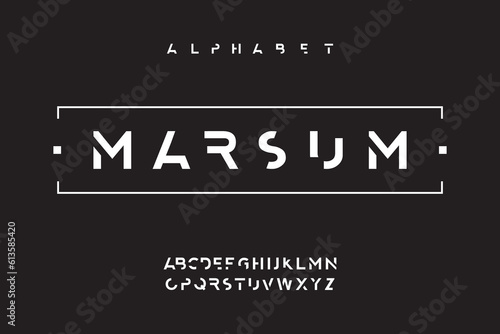
Abstract minimal modern alphabetic font typography - Marsum. Minimalistic technology electronic digital future creative font. Vector illustration. Modern alphabet fonts lettering. Uppercase